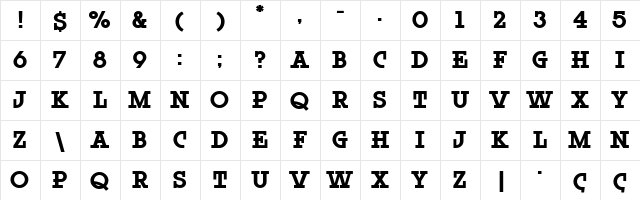
Rock Titling Bold Trial
Design Context for Rock Titling Typeface
Rock Titling offers clean, dependable letterforms without strong stylistic allegiance, making it a practical choice for designers who need flexibility. The heavy weight commands attention and anchors typographic hierarchies.